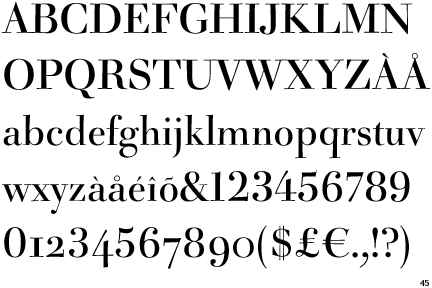
Inspired by the typeface designed by Henri Didot and used in 'De Imitatione Christi' (published 1788).
Designer: Akira Kobayashi
Year: 1998
Publisher: FontFont